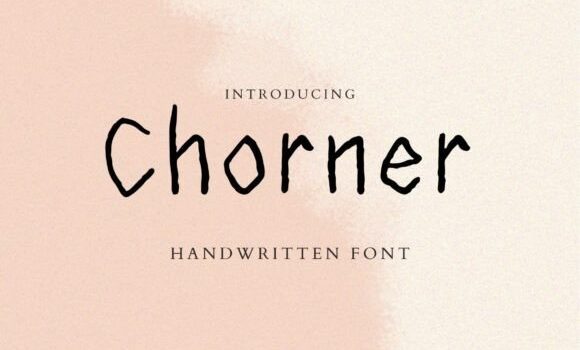
chorner
Chorner Font – Free Download Introduction to Chorner Font Chorner is a handwritten font that looks strong but has rhythm. 📸 Preview Gallery 5 images 📌 Product Name Chorner Font 👤 Author Simple Font 📂 Category Explore ⬇️ Download Chorner